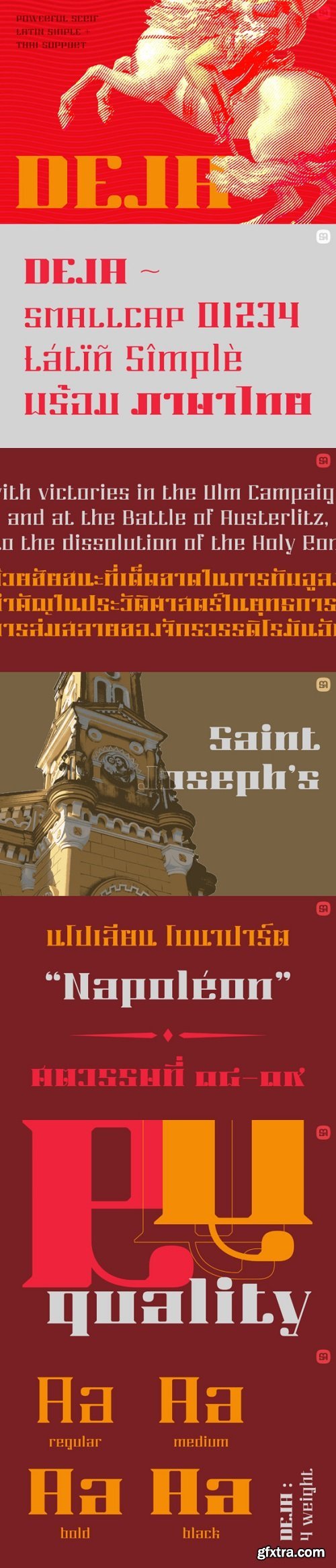
德尔瓦字体家族
Deja Font Family
Deja is a strong and bold display font. No matter the topic, this font will be an incredible asset to your fonts’ library, as it has the potential to elevate any creation.